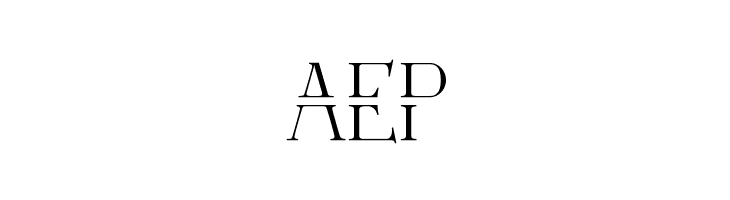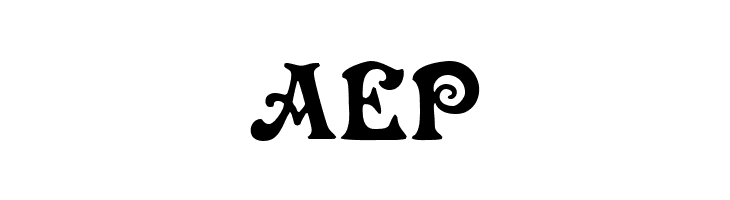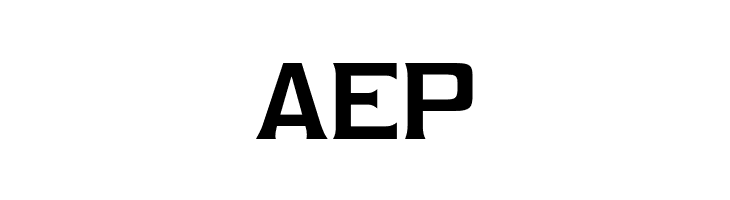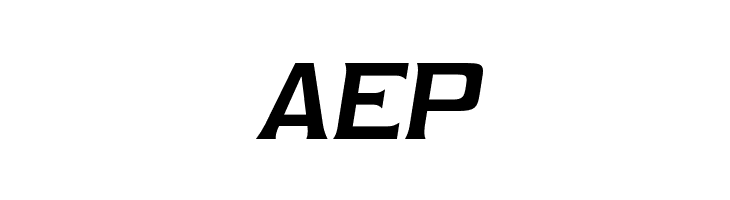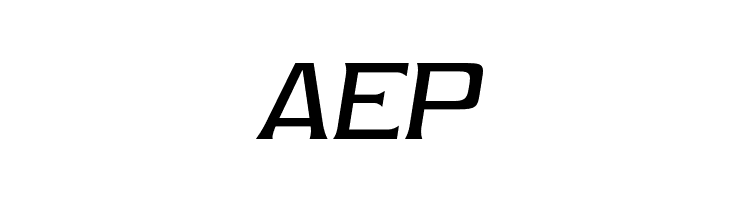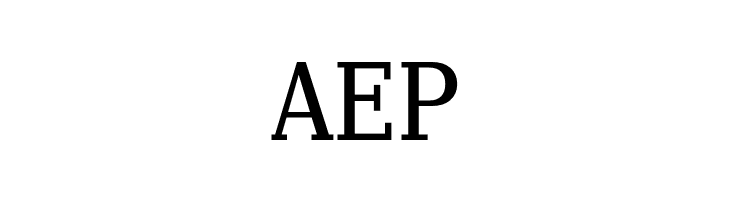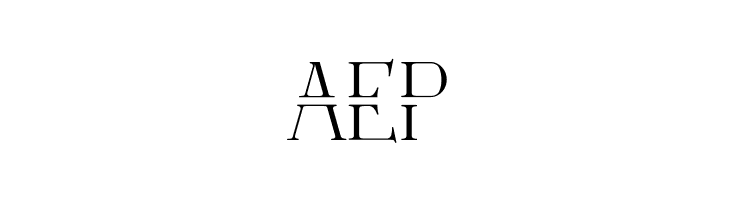
A classic serif font with elegant strokes and balanced proportions.
A bold serif typeface with high contrast and strong, classic serifs.
A bold and italicized font with a dynamic and elegant style.
An elegant italic font with balanced proportions and classic styling.
A refined serif font with elegant, balanced proportions and a timeless quality.
A bold, heavy serif font with a classic and authoritative style.
A bold, oblique font with a dynamic and impactful style.
A bold, modern serif font with elegant proportions and excellent readability.
A bold italic font with modern elegance and medium contrast, ideal for dynamic designs.
A refined italic font with smooth curves and moderate contrast.
A refined serif font with elegant lines and balanced proportions.
A bold, serif font with a classic and authoritative style.
A bold, italicized serif font with a dynamic and elegant appearance.
An elegant italic serif font with smooth curves and classic style.
A refined serif typeface with elegant curves and balanced proportions.
A bold, condensed serif font with strong, thick strokes and a modern twist.
A bold, italicized font with elegant, slightly condensed letterforms.
Elegant serif font with an italic slant and moderate stroke contrast.
A classic serif font with modern elegance and refined letterforms.
A bold serif font with high contrast and a modern classic style.
A bold, italicized font with a modern and elegant style.
Elegant italic font with smooth, flowing letterforms and a classic style.
A refined serif typeface with balanced proportions and classic elegance.
A bold, serif font with a blend of traditional and modern elements.
A sophisticated serif font with sharp serifs and elegant curves.
A modern, artistic font with horizontally split characters and bold strokes.
A mirrored, split-design font with bold, artistic flair.
A bold, serif font with a unique horizontal line through each character.
A bold, geometric font with a modern and industrial style.
A sleek, italicized font with a modern and dynamic appearance.
A modern, geometric font with consistent stroke width and a professional appearance.
A playful, handwritten script font with a casual and fluid style.
A bold, decorative font with unique curves and embellishments.